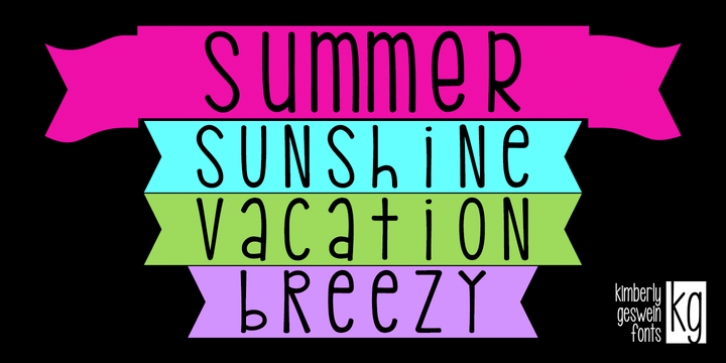
KG PDX Blocks was designed by Kimberly Geswein and published by Kimberly Geswein. KG PDX Blocks contains 1 style.
This cute flag or banner font contains a unicase font inside. Enclosed PDF guides you on how to use the font effectively.